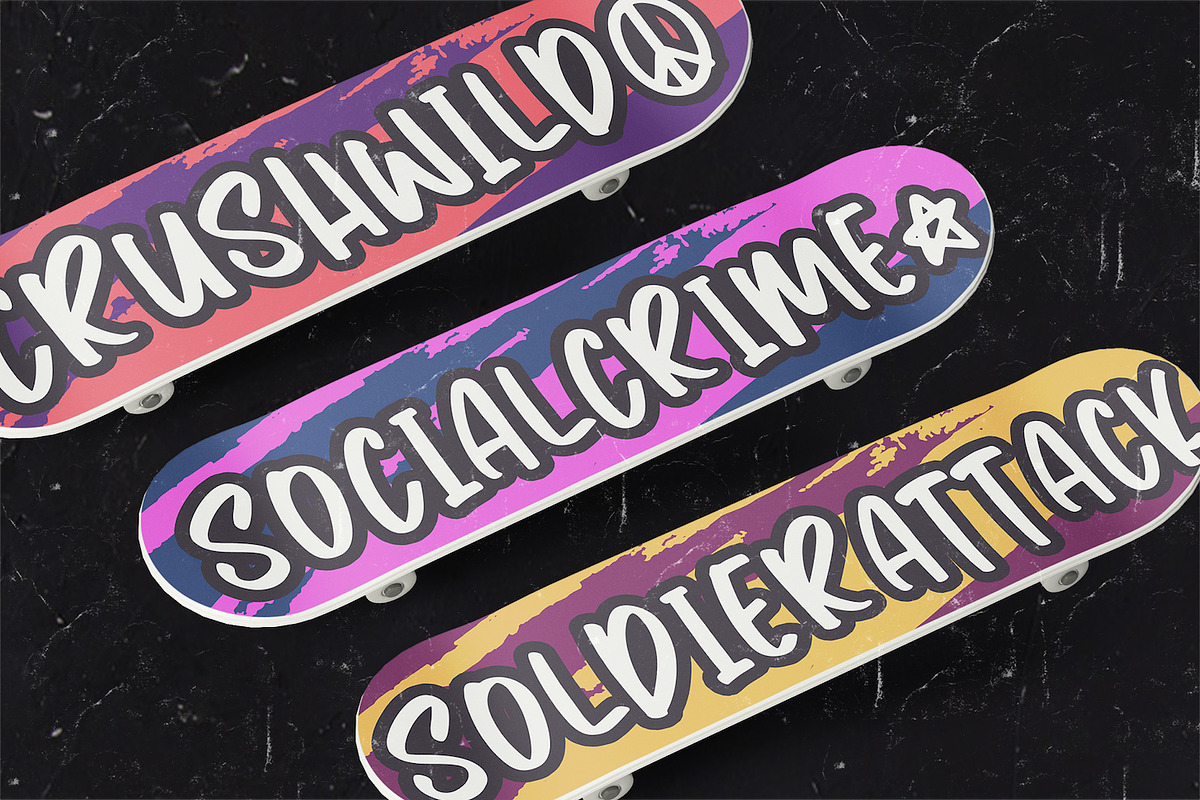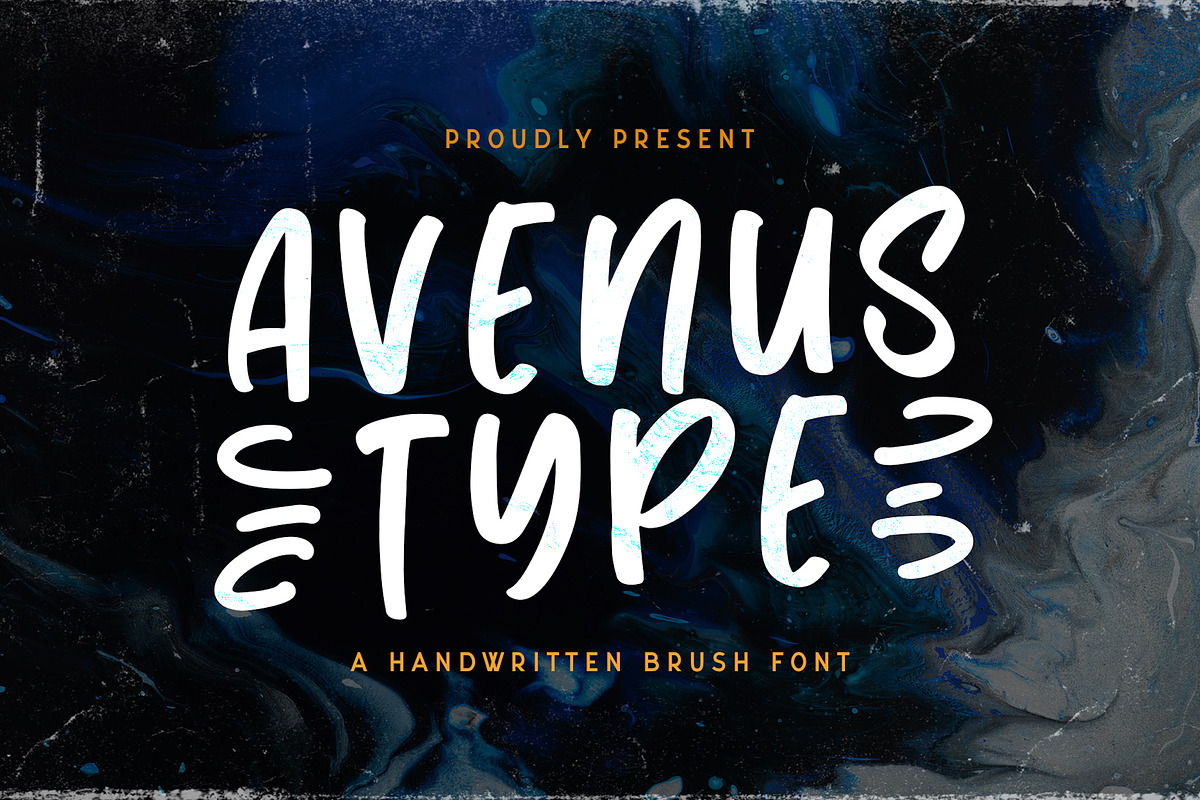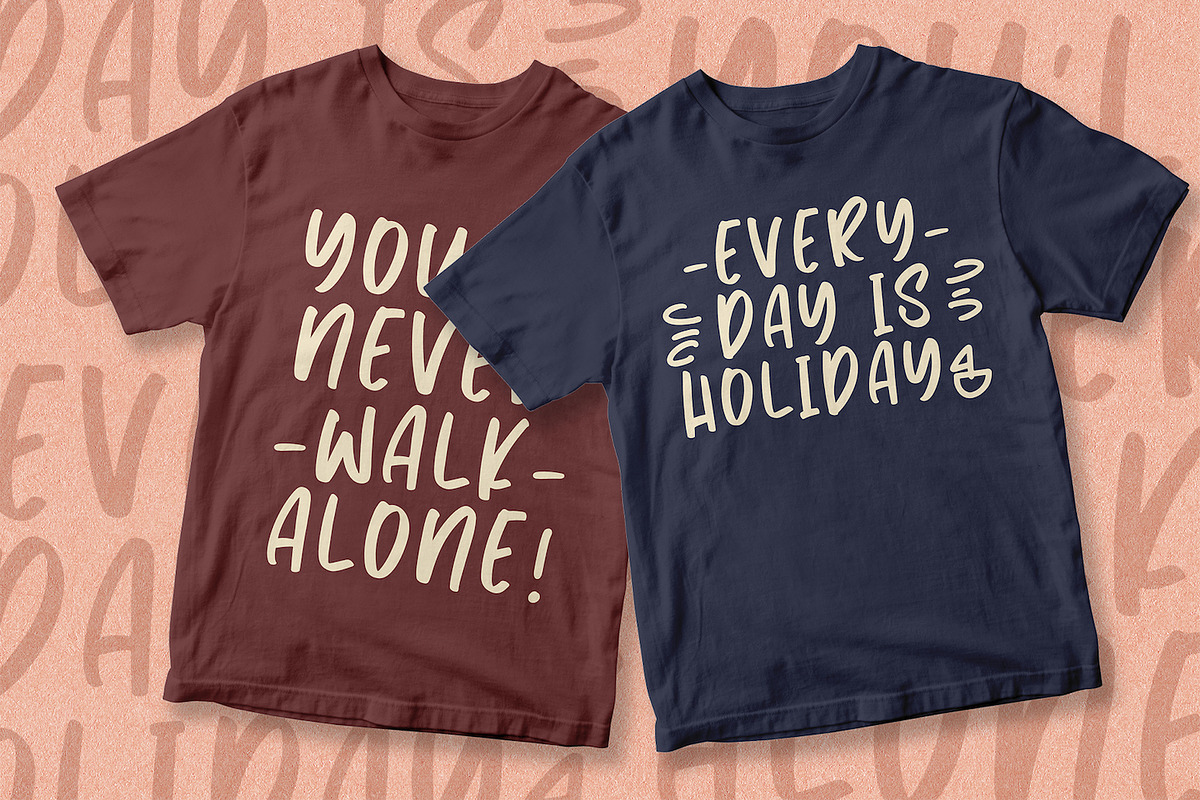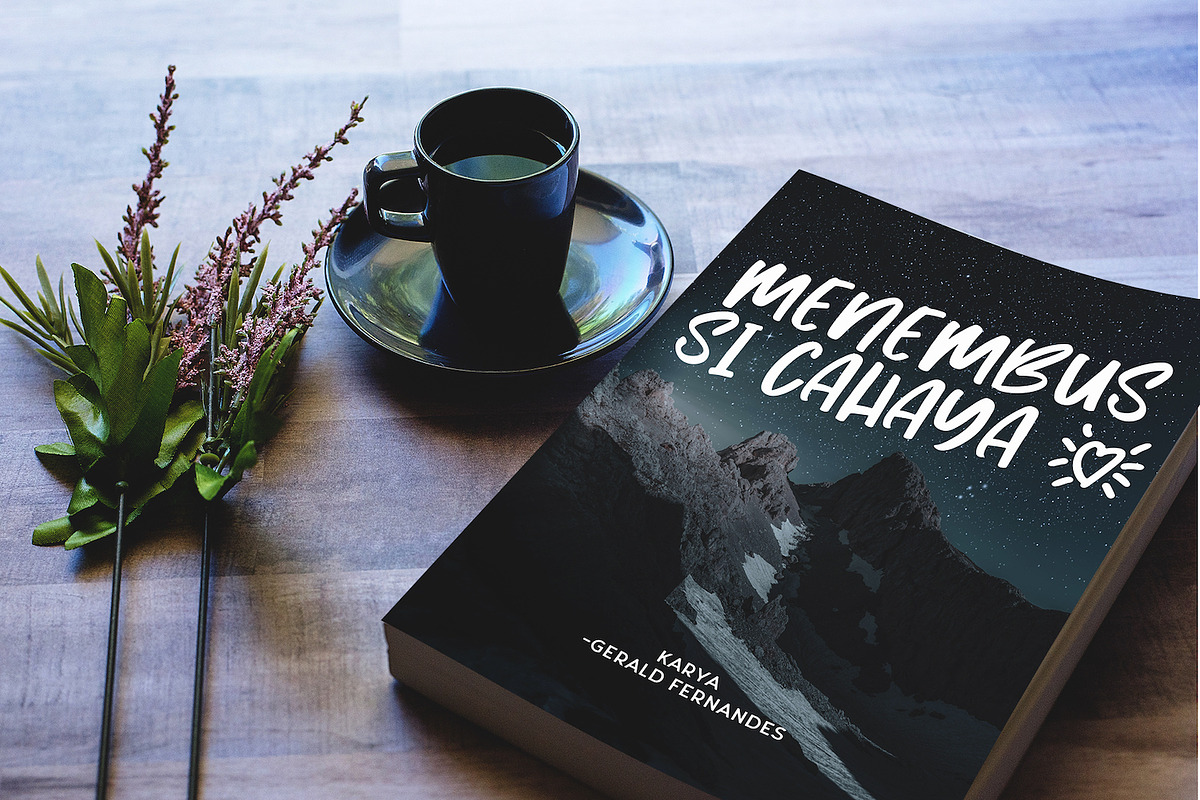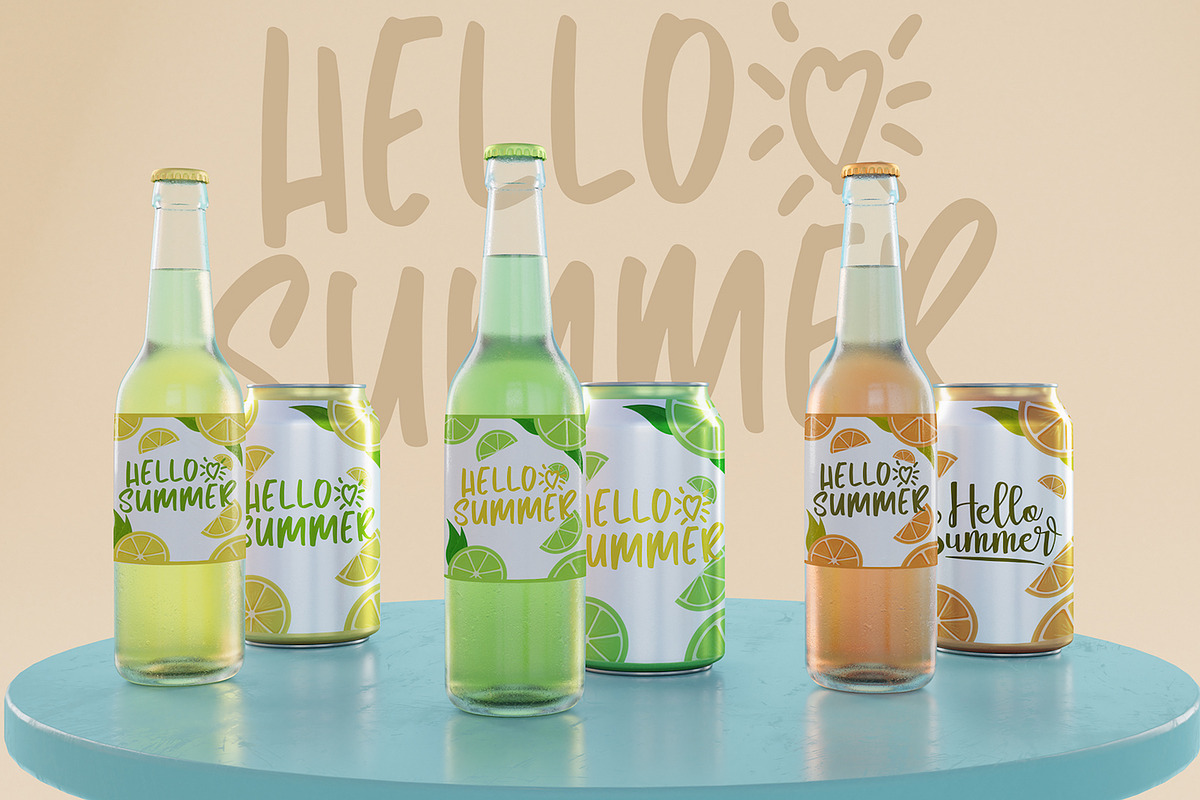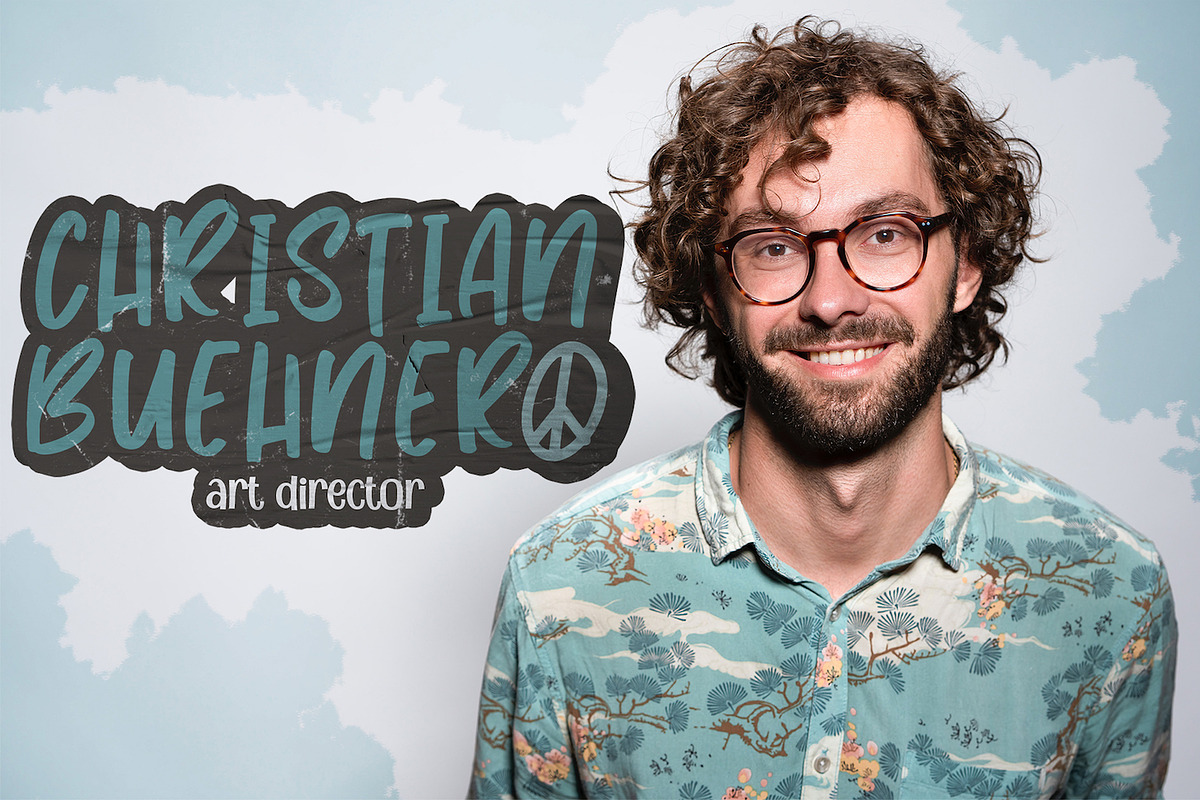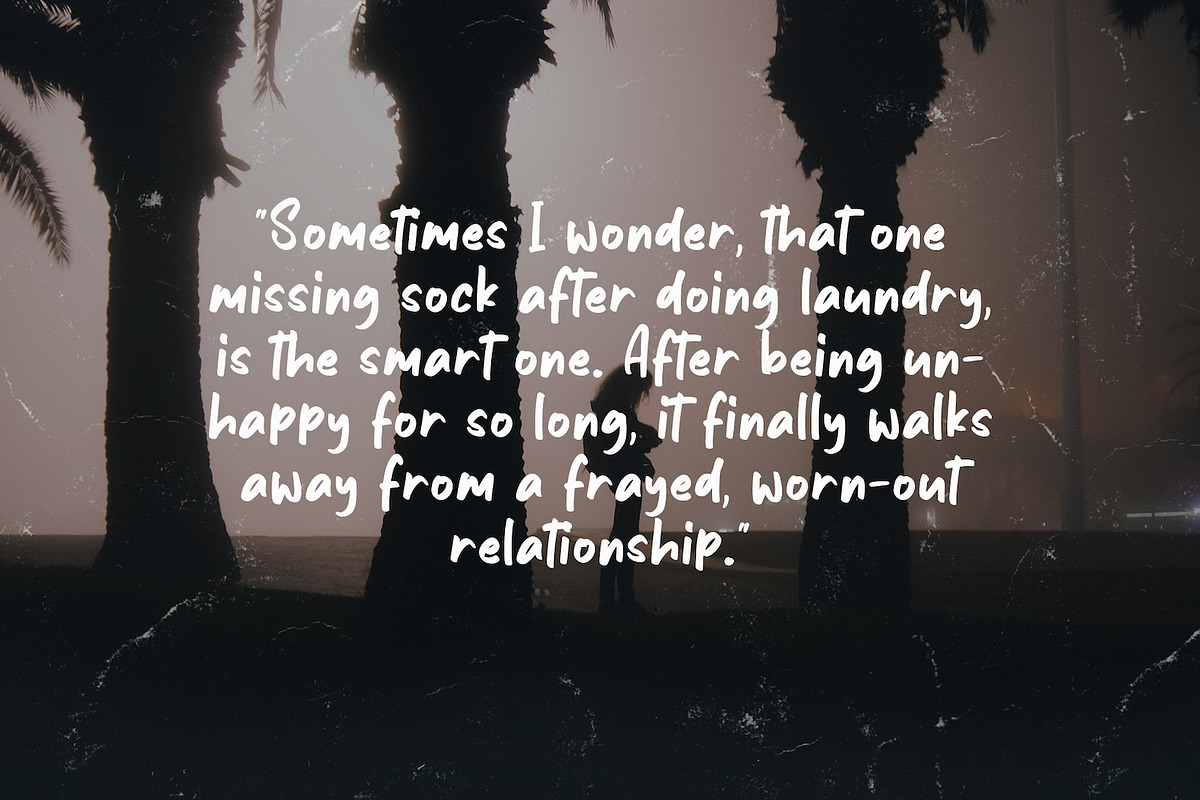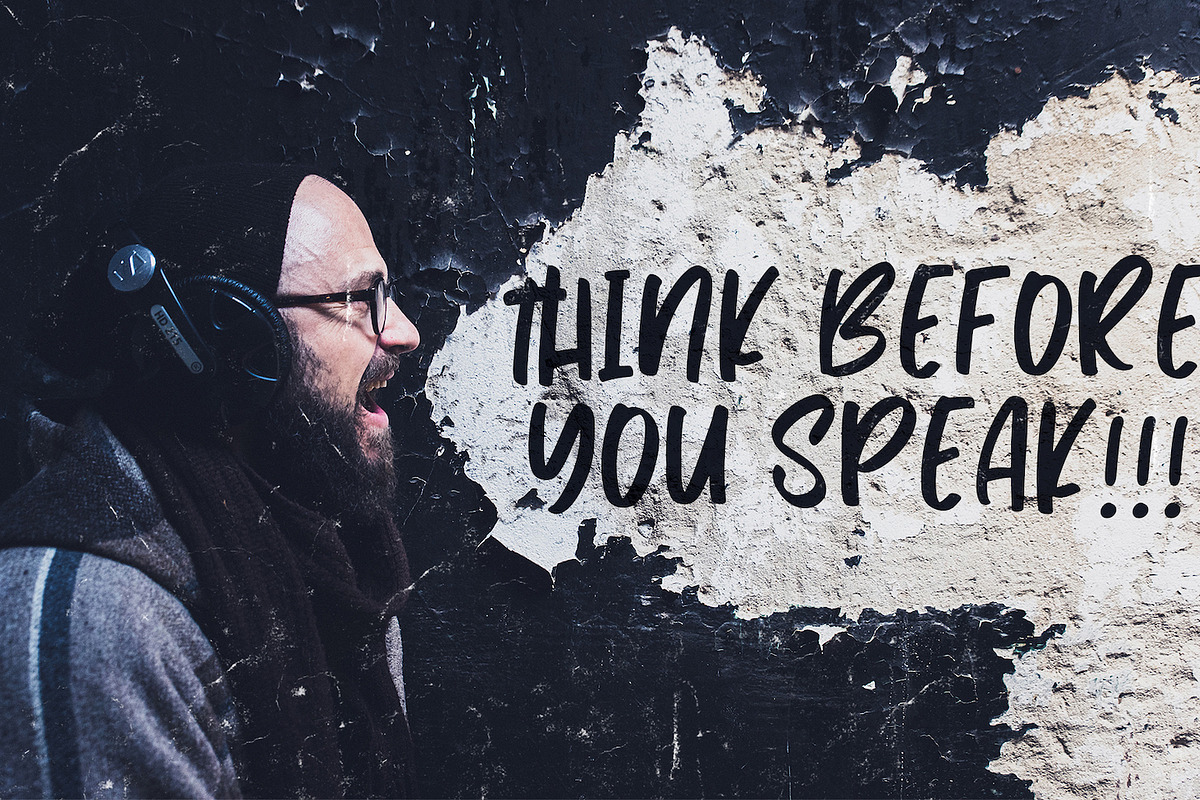
Avenus Type - Quirky Display Font
Introducing Avenus Type - Quirky Display Font
Avenus Type is a cute and quirky display font. Its friendly feel makes this font incredibly versatile, fitting a wide range of contexts. Add it to your creative ideas and notice how it makes them stand out!
Why Avenus Type - Quirky Display Font is worth a look
Avenus Type - Quirky Display Font by StringLabs fits naturally into Branding, posters, packaging, typography.